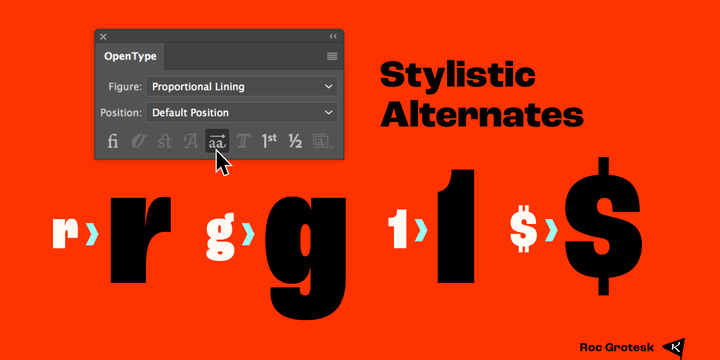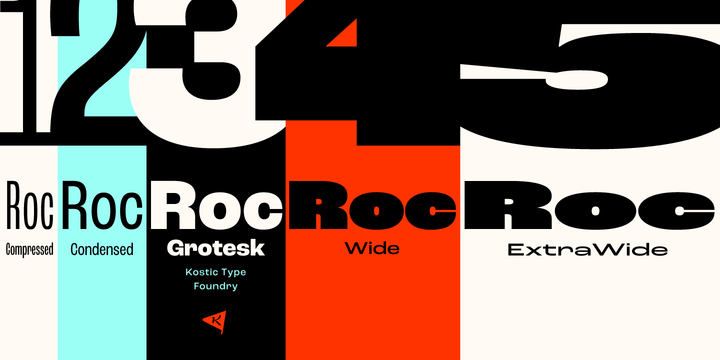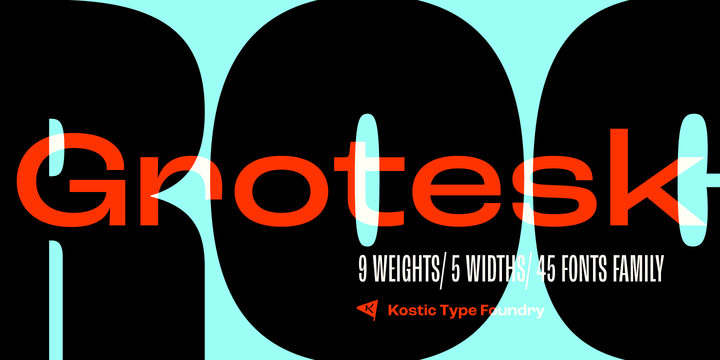
Roc is a sans serif grotesk inspired by American wood types from the end of the 19th century.
With nine weights in five widths, this family contains 45 fonts in total. The character set supports Western and Central European languages, as well as Turkish. More Roc Grotesk comes in a range of five widths: Compressed, Condensed, Normal, Wide and ExtraWide, in order to cover a wide scope of applications.
Although the styles at both ends of each range are made in their most pronounced form in terms of width and weight, they are not taken to such extremes as to become absurd, and are quite usable in display settings.
The Normal width keeps all its nine styles in proportionally similar widths. The Compressed width, however, is deliberately made to be disproportionate, so that every style takes the least possible horizontal space.
That is why the contrast between Compressed Thin and Compressed Heavy style is substantial.
As the weights progress from Thin to Heavy, the stroke contrast becomes more prominent.
It is intentionally exaggerated in heavier weights, which is particularly apparent in the uppercase E and R of the Black and Heavy style.
Roc has a large x-height and relatively short descenders and ascenders. No uppercase letter descends below the baseline, so the lines of an all-caps text can be packed tightly on a poster or a headline.
The Regular style is somewhat generously spaced, as it is most likely to be used for setting longer passages of text.
Its Bold counterpart is spaced in such a way that the width of the text column will be similar to the text set in Regular.
Tabular figures in these two styles have exact matching widths, so for example, you could emphasize one row of numbers in a data column without visually disrupting the vertical order of the table.
The lowercase g and r have alternatives to accommodate what most designers expect from a typical Grotesk typeface.
The single-story g and the cut-off r are accessible via the OpenType feature.